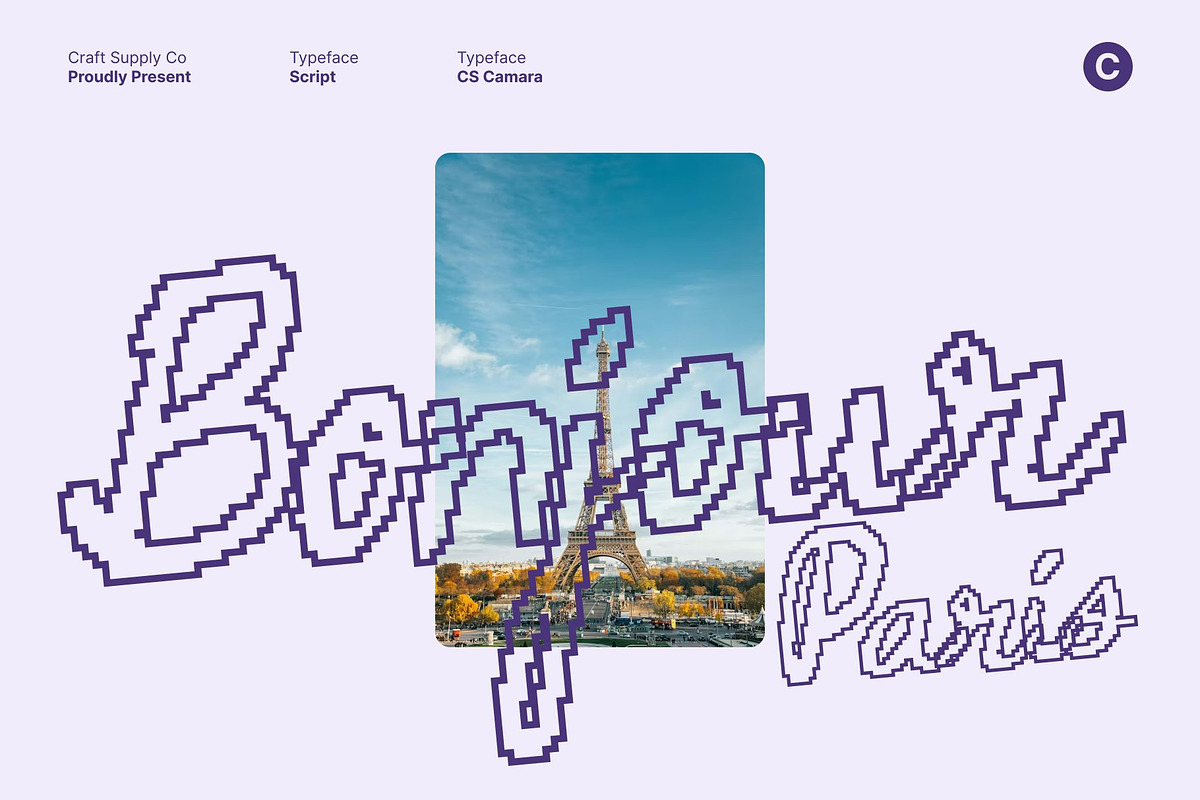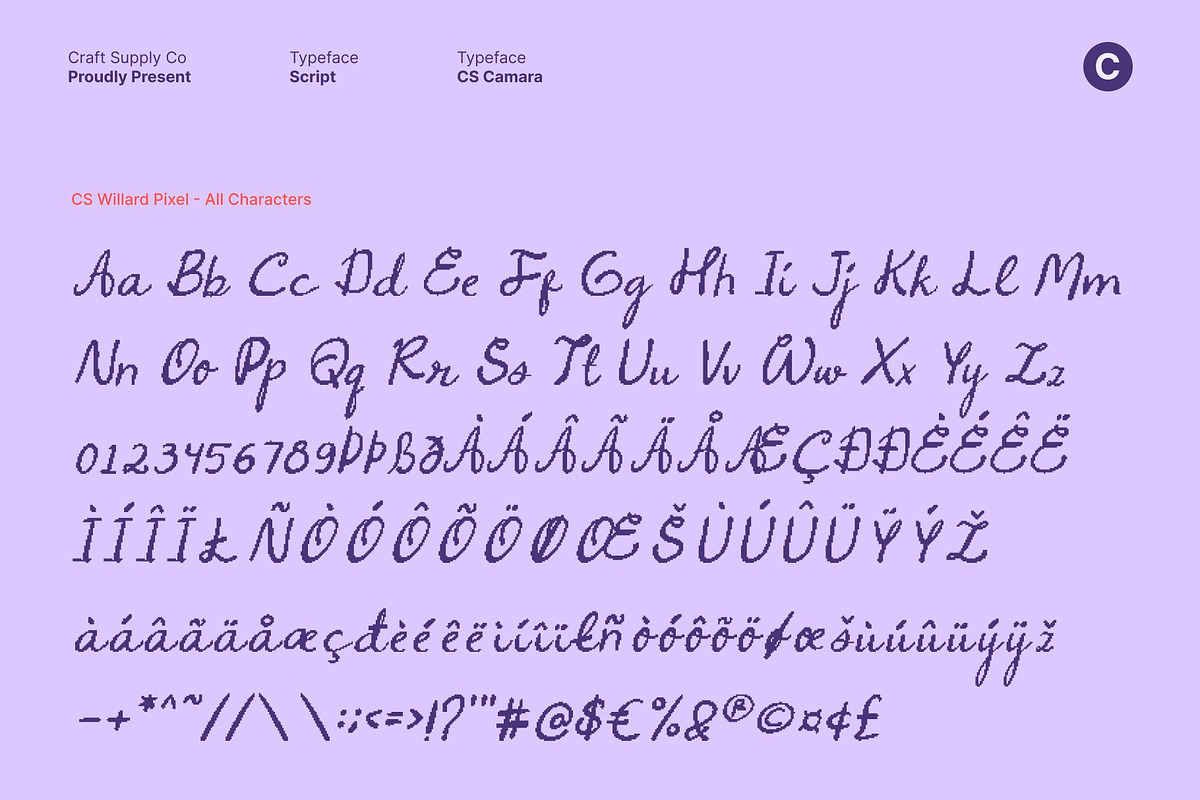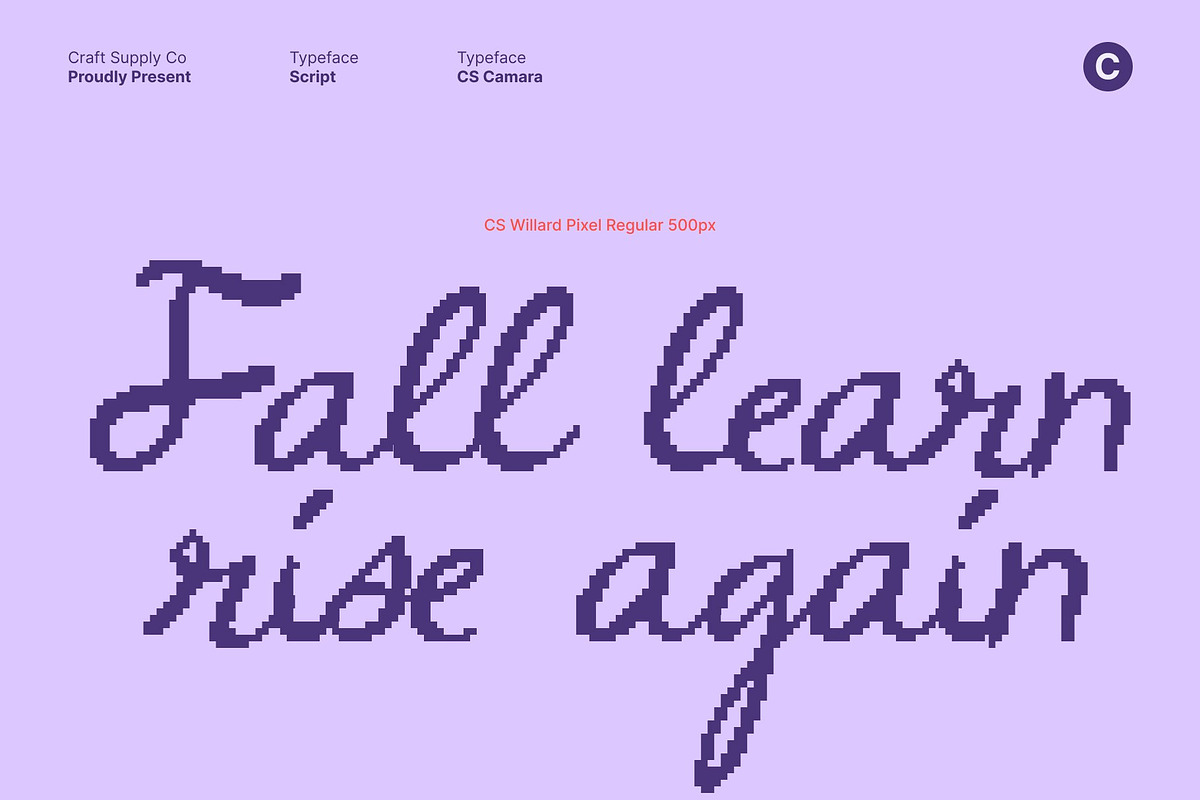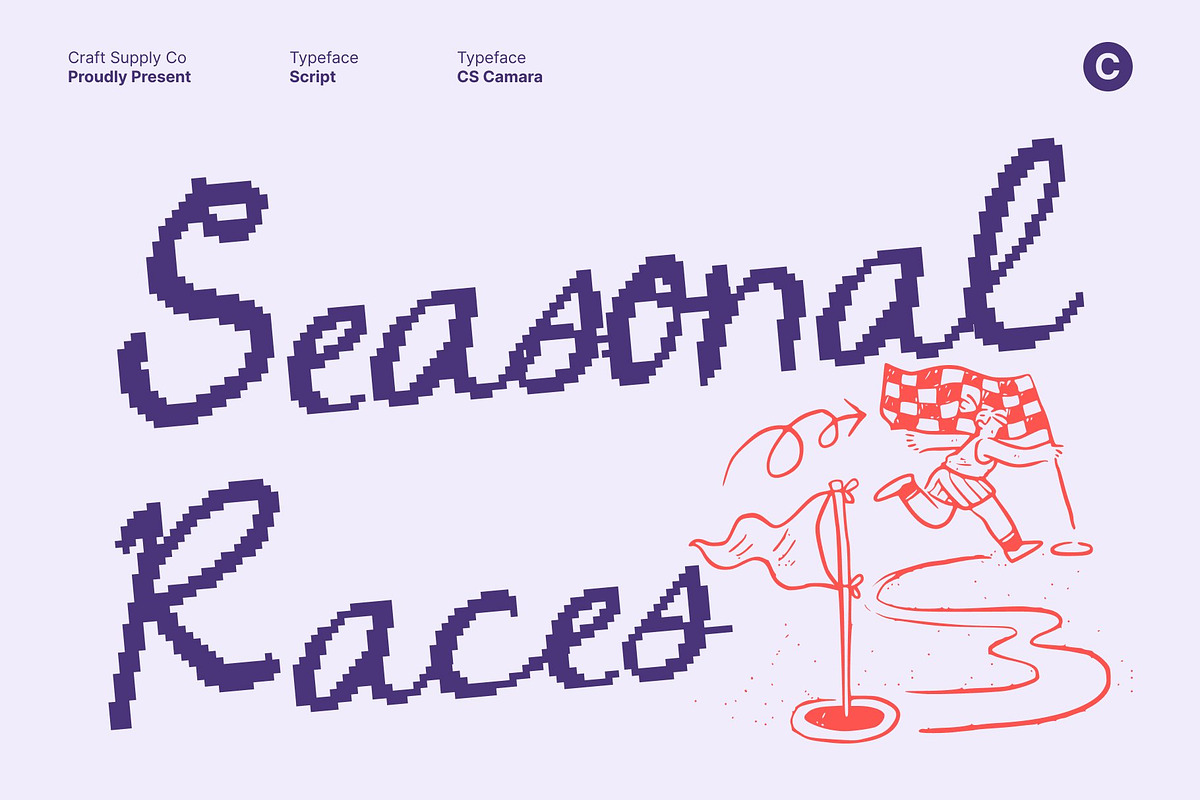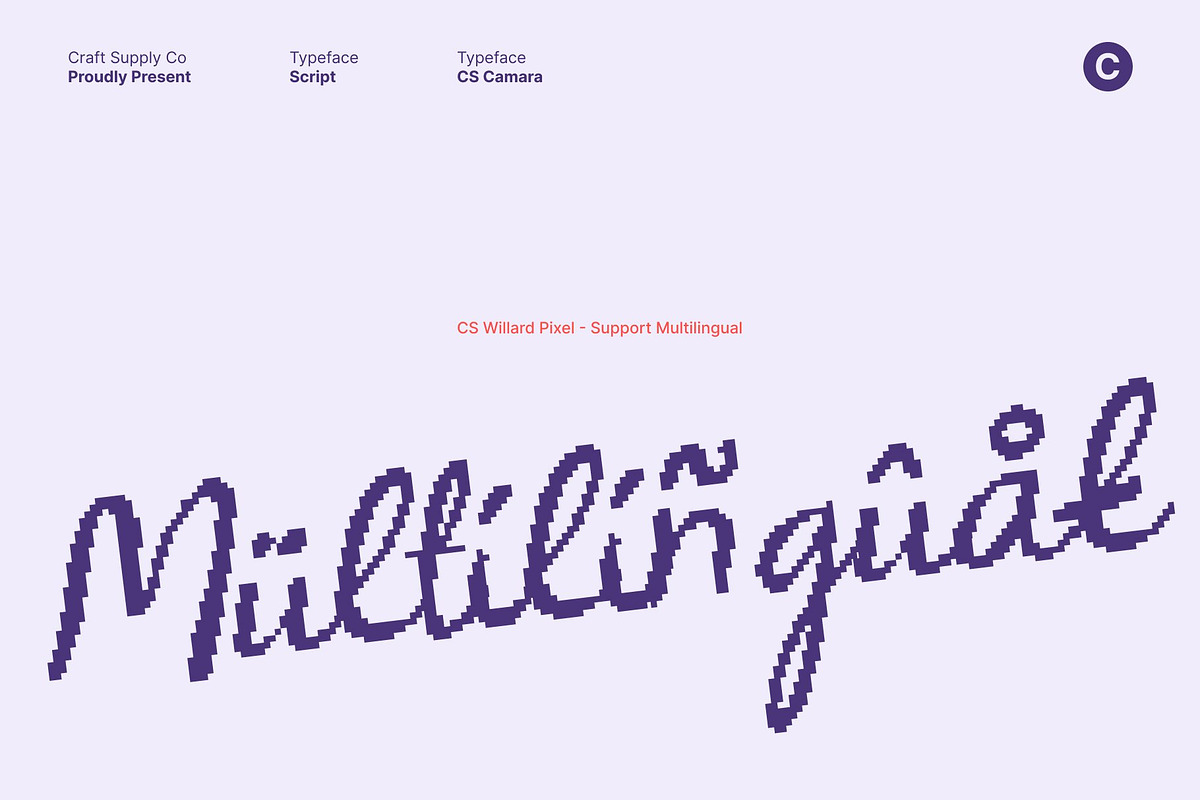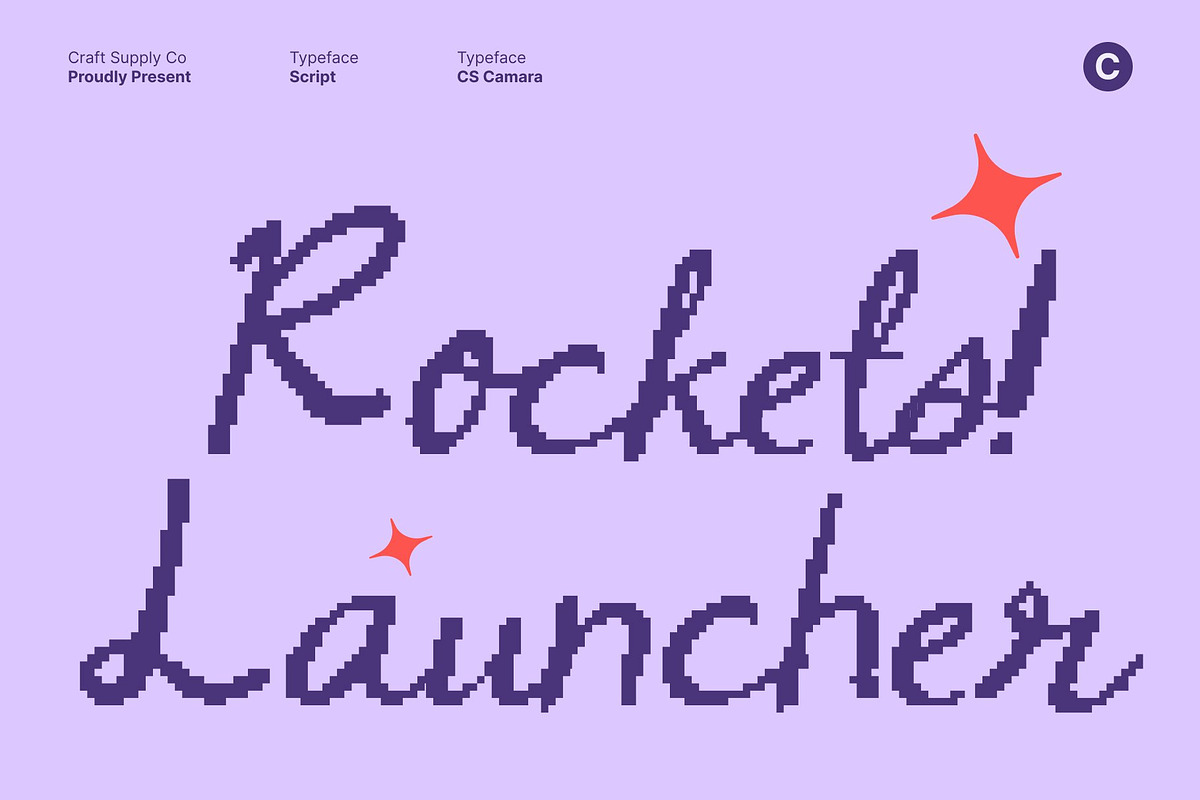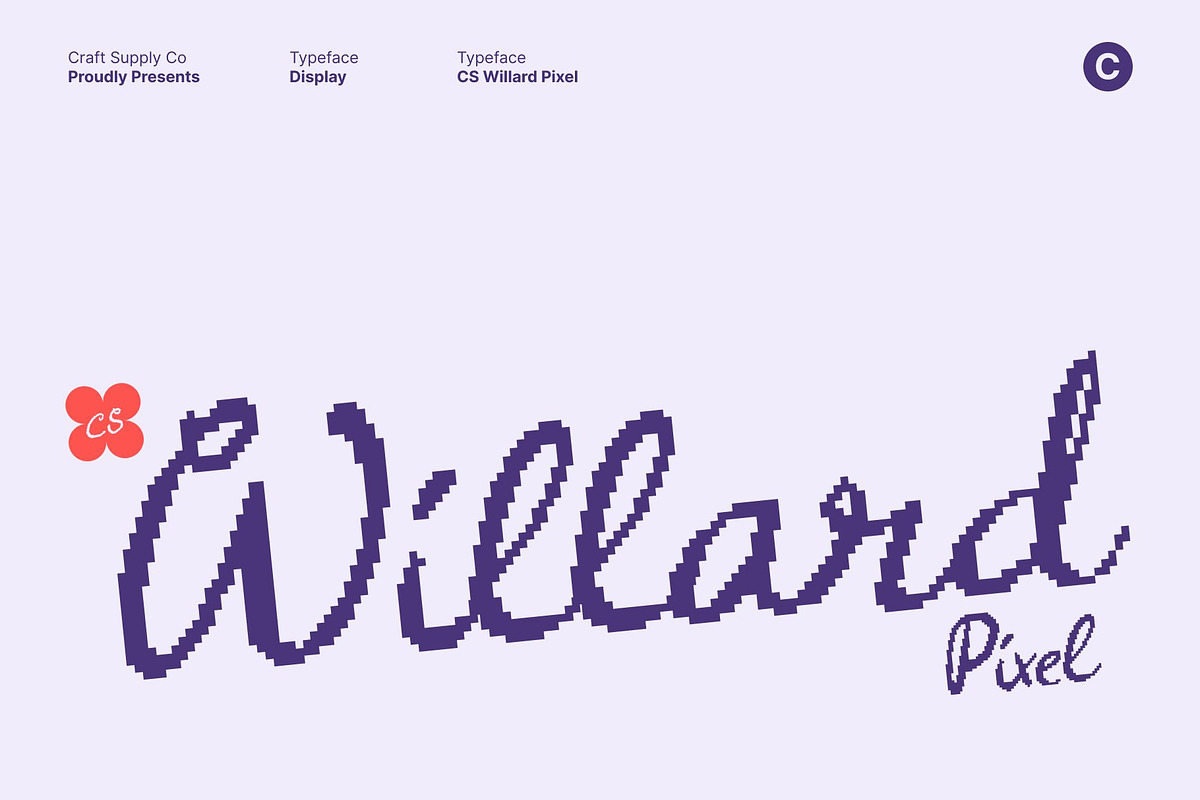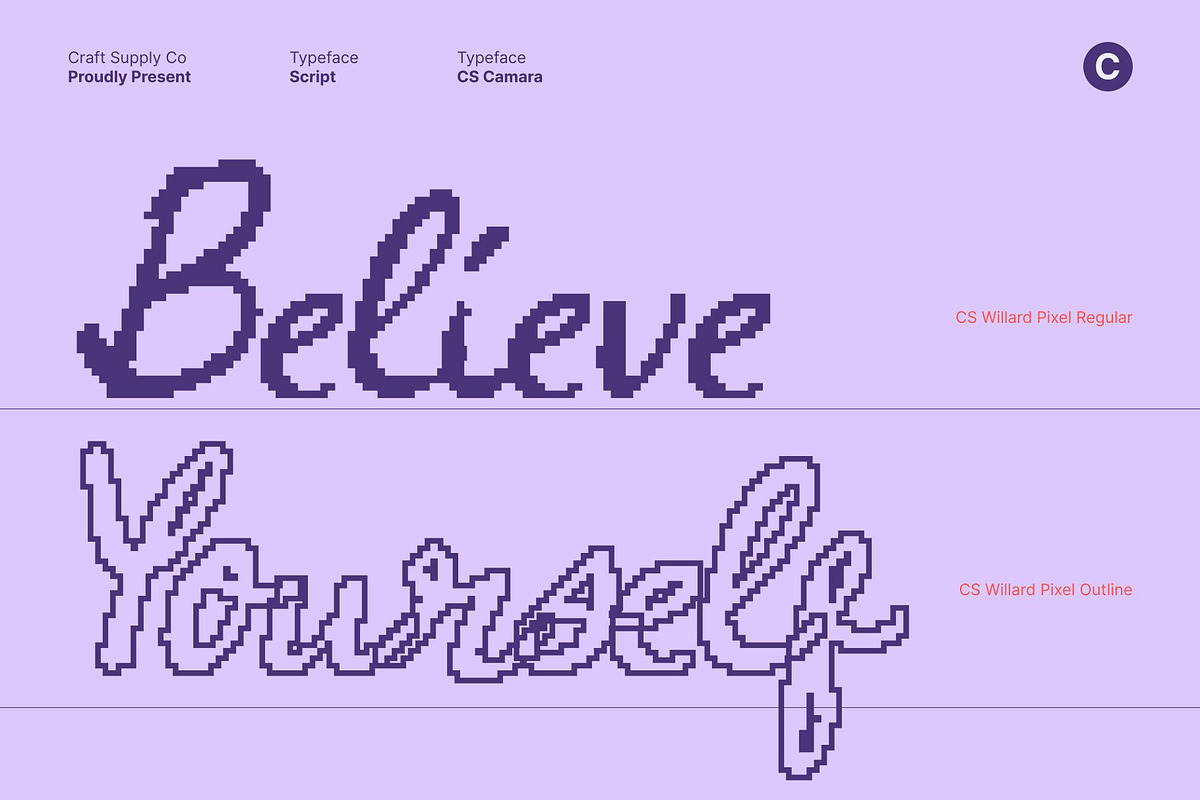
CS Willard Pixel
CS Willard Pixel – Whimsy Script Font with Creative Artistic Flair
Delicate Script with Pixel-Kissed Charm This is a whimsical script font that blends graceful handwritten flow with subtle pixel-inspired accents. Its fluid strokes and playful curves radiate softness and artistic personality, while refined pixel details add a gentle contemporary twist. The result is a script that feels warm, imaginative, and uniquely modern.
Artistic Flow with Digital Nuance Each letterform features smooth, sweeping strokes crafted with thoughtful balance and expressive movement. The delicate pixel touches enhance its visual identity without disrupting its natural rhythm, creating a harmonious blend of organic beauty and structured artistic detail. This combination allows the font to feel both sophisticated and creatively spontaneous.
Perfect for Branding with Personality This font shines in branding projects that seek softness, charm, and artistic distinction. Its expressive curves and subtle digital texture give logos, packaging, and editorials a memorable and refined presence. Ideal for boutique brands and lifestyle visuals, it delivers elegance with a playful edge.
Ideal for Creative Digital Design From creative design and social media graphics, this font enhances designs with romantic flair and artistic warmth. This font infuses every project with creativity, grace, and a modern pixel signature ensuring each composition feels personal, stylish, and beautifully crafted.
- CS Willard Pixel Regular
- CS Willard Pixel Outline